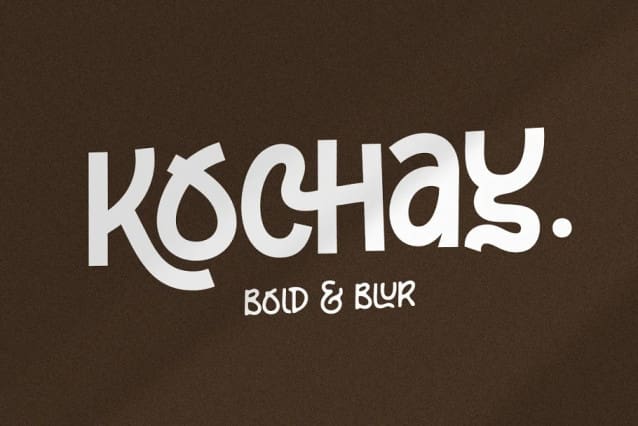
Kochay Display Font
Kochay Display Font is an unique bold and blurred hand lettering monoline font. this font is outstanding with its sharp and bold style that makes kochay font is more tough and aesthetic. This font equipped with extra ligatures and alternates. Kochay is perfect for branding, text header, t-shirt design, logotype and other stunning graphic design.